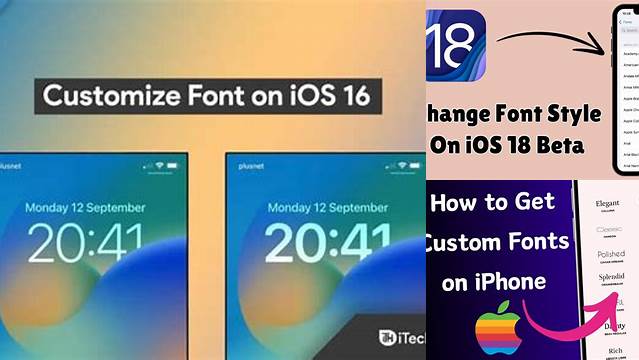
Get IOS 18 Fonts For Free: A Comprehensive Guide
Hey everyone! Are you stoked about the upcoming iOS 18 and can't wait to personalize your iPhone with some fresh new fonts? You're in the right place! This guide is all about how to get iOS 18 fonts for free, and we'll dive into everything you need to know – from where to find them to how to install them. Let's get started, shall we?
H2: Unveiling the Latest Typography in iOS 18: What's New?
Alright, before we jump into the nitty-gritty of downloading fonts, let's talk about what's potentially new and exciting in iOS 18's font game! Apple usually rolls out some cool updates to their system fonts, and sometimes they even add in a few new ones to spice things up. This includes updates to the standard system fonts, like San Francisco, ensuring they look sharp and readable across all devices. We can expect improved rendering and optimization for different screen sizes and resolutions, something that makes our iPhones and iPads look even better. Beyond this, Apple sometimes includes new font styles or variations, like bolder weights or condensed versions of existing typefaces. These new styles can be used to enhance user interface elements, adding visual interest to your apps and the system's overall look. Keep an eye out for these fresh additions – they can make your iPhone stand out from the crowd.
Beyond the system fonts, iOS 18 is expected to improve the way custom fonts are handled. Expect improved support for variable fonts, which lets you adjust the weight, width, and other characteristics of a font, and this allows for even more flexibility and customization. This means users can explore new font options, and you'll get a lot more control over how text appears on your device. With these upgrades, expect to see more creative apps taking advantage of these new font features, allowing you to completely transform how you interact with your iPhone or iPad. Stay tuned for more details as iOS 18 gets closer to release, and let's see what amazing fonts we can download and enjoy!
H3: System Font Updates and Enhancements in iOS 18
Apple typically focuses on system font updates with each new iOS release, including iOS 18. These enhancements are crucial because they ensure the entire iOS experience is readable, visually appealing, and consistent. The goal is to maintain a polished and seamless look across all apps and the system interface. San Francisco, the main system font, is likely to get some tweaks to ensure it continues to perform and look great across all iPhone and iPad models. The font is optimized for readability and clarity on a variety of screen sizes and resolutions, so expect refinements in how the font renders on your device. This may involve adjusting the kerning (spacing between letters) and the weight of the font to make sure it's easy to read. Also, improvements in how fonts are displayed in different contexts is important. For example, improvements in dynamic font scaling ensures that text adapts to different accessibility settings, so users with visual impairments can easily customize their iPhone's readability. The goal is to strike a balance between visual appeal and functionality, improving the experience for everyone. These changes are critical for providing a seamless and enjoyable user experience, so keep a keen eye out for these updates!
H3: Using iFont and Other Font Management Apps
To get started with installing fonts on your iOS 18 device, you'll need a font management app. iFont is a great option, and it provides a simple way to install and manage custom fonts on your iPhone or iPad. When you first open iFont, you'll be presented with an intuitive interface. You can import fonts from various sources, like your device's files app or directly from font websites. Once you've imported your font files (usually .ttf or .otf), iFont guides you through the installation. The process typically involves installing a configuration profile, which permits the fonts to be used across your system. You need to follow the in-app instructions carefully, ensuring that you allow the profile to be installed in your settings. After the profile is installed, you can go to 'Settings' on your iPhone. You will find your new fonts listed under 'General', then 'Fonts'. If you want to start using the new fonts, you have to make sure your apps support custom fonts. Apps like Pages, Keynote, and other compatible apps allow you to select from your installed fonts in their font menus. iFont simplifies this entire process, so you don't have to be a tech expert to get it working. Make sure to explore different font management apps to find the one that fits your needs. These apps make it easy to manage fonts, so you can make the most of the many typography possibilities.
H2: Troubleshooting Common Font Installation Issues in iOS 18
Sometimes, even with the best instructions, you can run into problems when trying to install fonts on your iOS 18 device. The most common issues are related to compatibility, permissions, and the app itself. If a font doesn't appear in the app you're trying to use, make sure that the app supports custom fonts. Not all apps have this feature. If the fonts seem to be installed correctly but aren't showing up, double-check the font installation app. Try reinstalling the font or restarting your device. If you're still having problems, there might be an issue with the font file itself. Ensure that the file is a .ttf or .otf, and that it is not corrupt. Downloading the font again from the original source can fix a lot of the time. Another common problem is with permissions, so always check the app's settings and ensure it has the necessary permissions to install fonts. You might also encounter issues with conflicting font profiles, especially if you have installed fonts through various apps. If you encounter problems, the first thing is to delete any conflicting font profiles and try installing the fonts again. For persistent issues, contact the font installation app's developer for support. Troubleshooting might take a little bit of patience, but with the right steps, you can fix most font installation issues.
H3: Resolving Font Compatibility and Permission Problems
Encountering font compatibility and permission issues when installing fonts on your iOS 18 device can be really frustrating, but you can fix most of them with careful troubleshooting. One of the most common problems is font compatibility. Ensure that the font you are trying to install is compatible with iOS and is in a supported format (.ttf or .otf). If the font is not compatible, it won't appear in your app's font list. You can often resolve this by re-downloading the font, and making sure you get the correct version. Permissions can also cause problems. When you install a font, the font management app needs permission to install a configuration profile on your device. Make sure that the profile is installed correctly. If you're using a font management app, make sure it has the necessary permissions to access your device's storage. You can typically manage these settings in your device's settings app, under 'Privacy' or 'App Permissions'. If the font still does not show up, there might be a conflict with other installed font profiles. Try deleting any conflicting profiles. You might need to remove the font profile and then install it again through the app. Another troubleshooting tip is to restart your iPhone or iPad after installing or reinstalling fonts. A simple restart can fix a number of issues. Resolving font compatibility and permission problems sometimes takes a little patience, but with these steps, you can get your fonts installed without problems.
H3: Addressing Common Queries and Concerns
To wrap up our guide, let's address some common questions and concerns about iOS 18 fonts to make sure you're fully informed. A common question is, “Which apps support custom fonts?” Many popular apps, such as Pages, Keynote, and other productivity and design apps, support custom fonts. However, not all apps have the feature. You can test the font to check if it works. Another common question is, “Is it safe to download fonts from the internet?” Yes, it is generally safe to download fonts. However, always download from trusted sources, and check the license of the fonts before downloading. You must be careful to ensure that you are getting fonts from a reliable source. Another concern is the licensing of fonts. “Can I use these fonts for commercial use?” It depends on the font’s license. You should always read the license agreement. You must ensure that you have the right to use the font for commercial purposes. If you uninstall a custom font, will all my documents change? If you uninstall a font, the text that was formatted with that font will usually revert to the default font for the app or your device. You will often see this when opening a document. Many people wonder, “Can I use custom fonts on all my Apple devices?” No, you usually need to install the font on each device. You can consider these questions to be a good foundation.